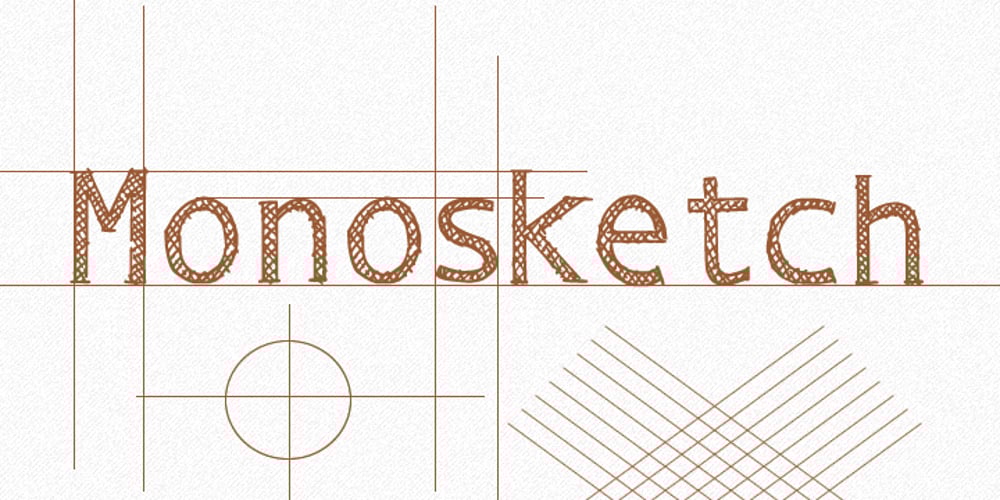
Monosketch Font Family was designed by Bartek Nowak and published by GRIN3 (Nowak). Monosketch contains 3 styles and family package options. Monosketch is a hand-drawn font inspired by monospaced fonts like Andale Mono. Monosketch Layer and Monosketch Black can be used together by layering Monosketch Layer above a differently colored Monosketch Black. Language support includes Western, Central and Eastern European character sets, as well as Baltic and Turkish languages.